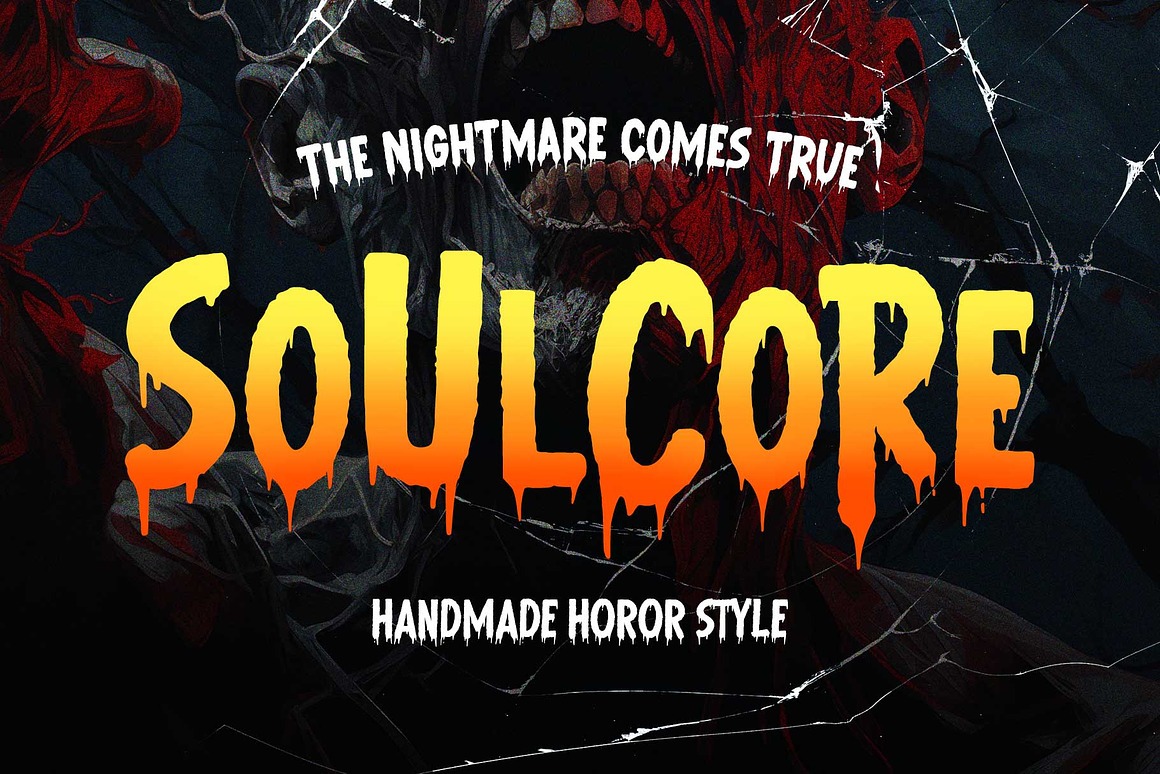
Soulcore Font
About Soulcore
Introducing Soulcore – A Terrifying Typeface for Fearless Designs
Dare to design with Soulcore, a spine-chilling display font forged in the shadows of your darkest imagination. With jagged strokes, distorted forms, and raw intensity, this typeface is crafted to invoke unease, suspense, and a perfect dose of chaos.